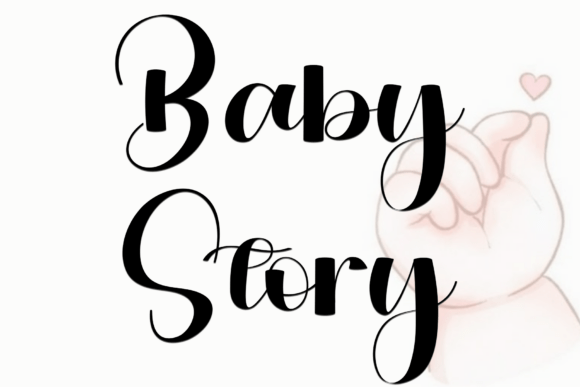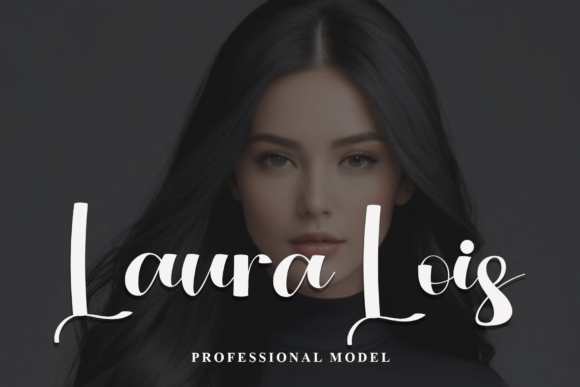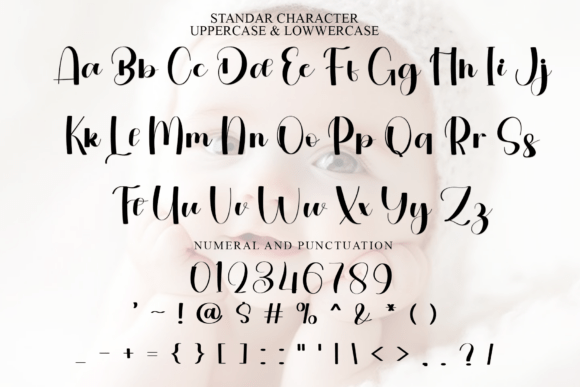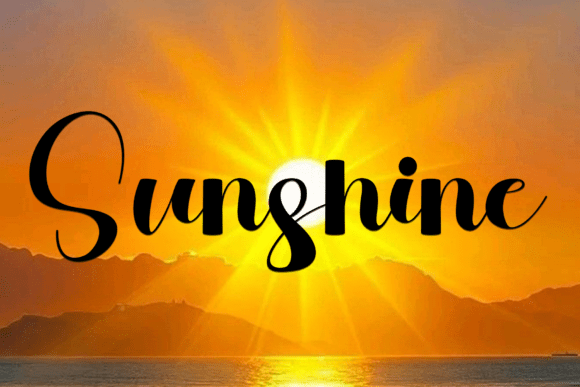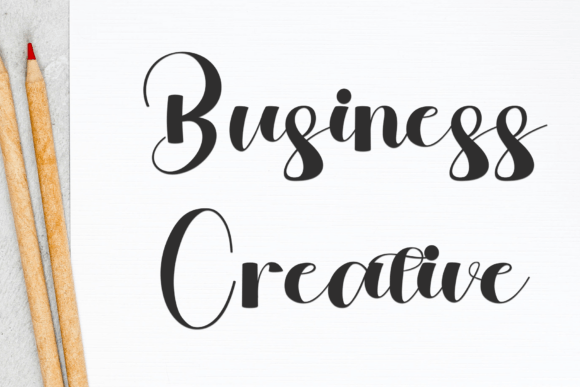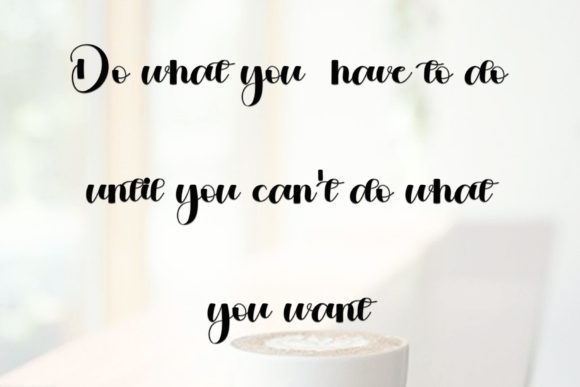
Discover the Perfect Touch for Your Designs
Have you ever been scrolling through a design blog or social media and seen a font that immediately caught your eye? For many of us, this moment sparks inspiration and sets our creative wheels in motion. It’s that special something that makes a design stand out from the crowd.
That’s exactly what the Elegant Wonderful Font is all about. This beautiful font is designed to add a soft, unique touch to your designs, making them truly special. With its distinctive strokes and versatile character, it’s perfect for a wide range of creative projects. Whether you’re a professional designer or a crafty enthusiast, the Elegant Wonderful Font is an invaluable tool that will take your designs to the next level.
Elegant Wonderful Font Key Features
- Unique Characteristics: Elegant Wonderful Font boasts a distinctive combination of clean lines, flowing curves, and subtle flourishes, making it perfect for creating sophisticated and luxurious designs.
- Kerning and Ligatures: Elegant Wonderful Font includes advanced kerning and ligature features, ensuring that text is beautifully spaced and visually appealing, even at smaller font sizes.
Elegant Wonderful Font Review
I recently had the chance to work with the Elegant Wonderful Font and I have to say, it’s a mixed bag. On the one hand, there are some things that really shine.
- ✨ Elegant lines and curves give this font a sophisticated feel that’s perfect for high-end branding.
- ✨ The font is highly legible, even at small sizes, making it ideal for body text.
- ✨ The font is highly customizable, with a wide range of styles and weights available.
- ⚠️ The font can feel a bit generic at times, lacking the unique character that some other fonts bring to the table.
- ⚠️ The font’s elegance can sometimes come across as overly formal or stuffy, which may not be suitable for all brands.
- ⚠️ The font can be a bit difficult to use in certain contexts, such as at very small sizes or in low-resolution environments.
Overall, I’d say that the Elegant Wonderful Font is a solid choice for designers who need a sophisticated, highly legible font. However, it’s not without its limitations, and may not be the best fit for every project.
Tips for Getting the Most Out of Elegant Wonderful Font
Use Elegant Wonderful Font to add a touch of elegance to your designs.
Pair it with a simple background to let the font shine.
Experiment with different font sizes and styles to create a unique look.
Common Use Cases for Elegant Wonderful Font
Use Elegant Wonderful Font for:
Business cards and marketing materials
Blog posts and articles
Alternatives to Elegant Wonderful Font
Playfair Display is a luxurious and elegant serif font, perfect for high-end branding and luxury goods. It features intricate details and flourishes, making it ideal for creating a sense of sophistication and refinement. Compared to Elegant Wonderful Font, Playfair Display is more ornate and luxurious, but may be less readable in smaller sizes.